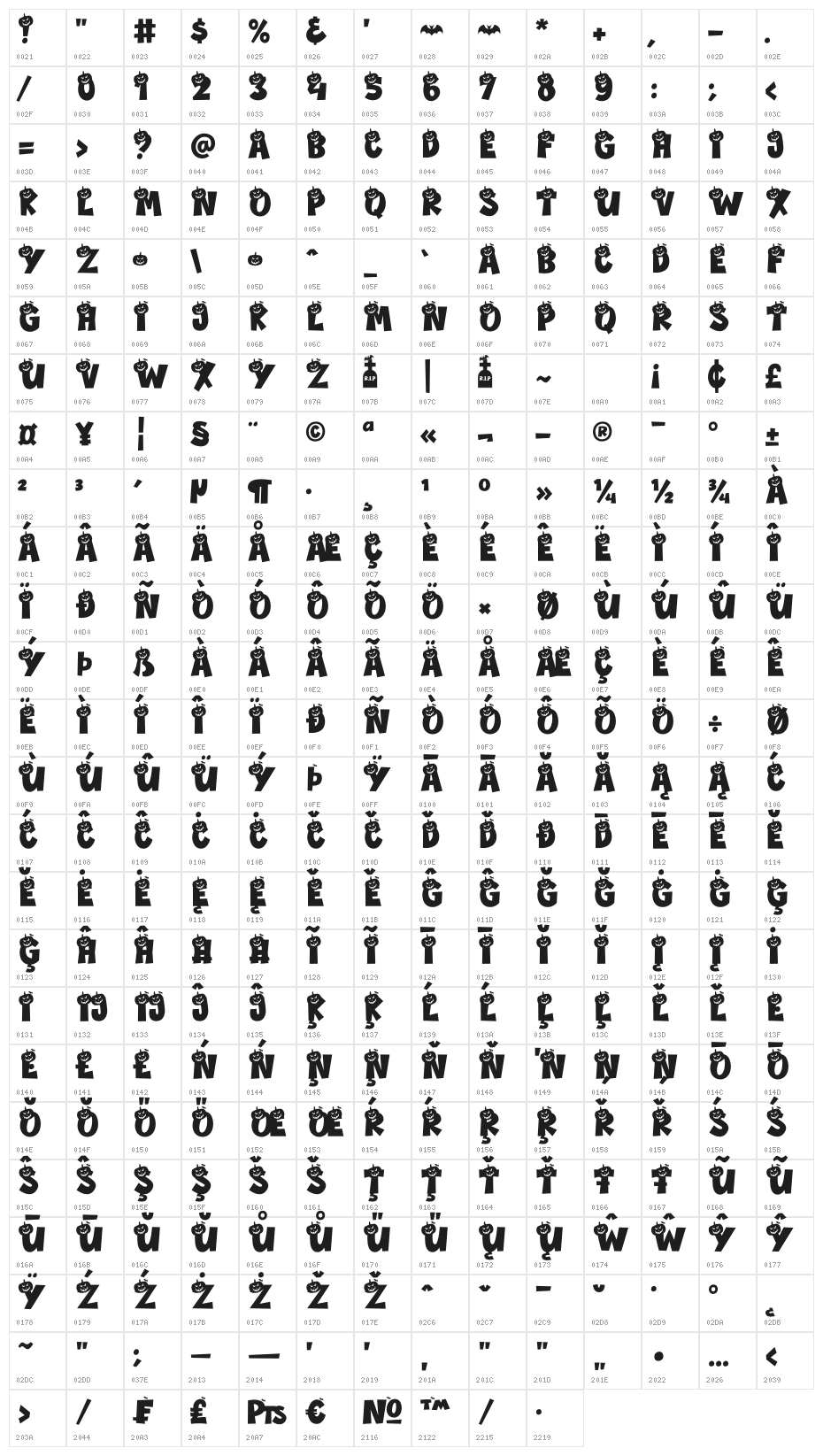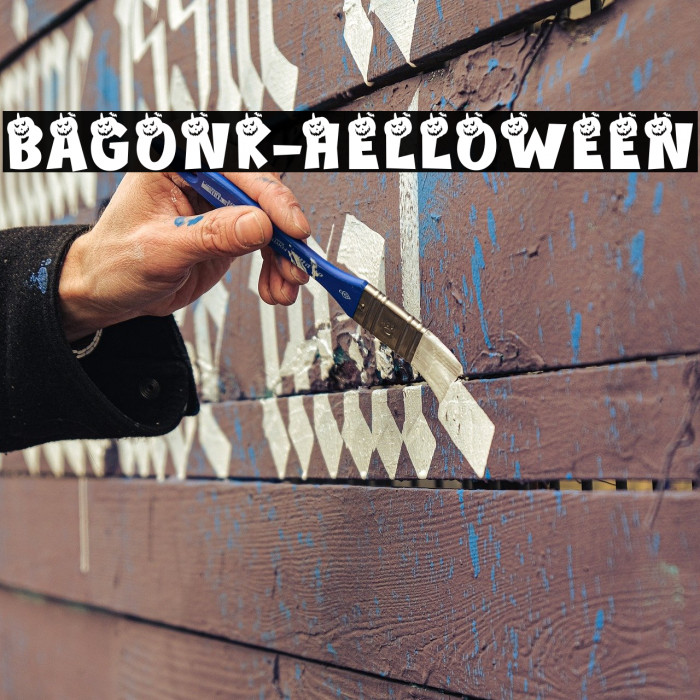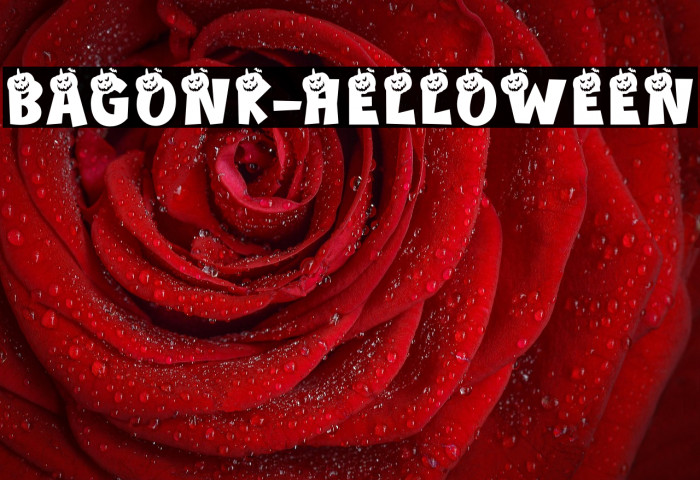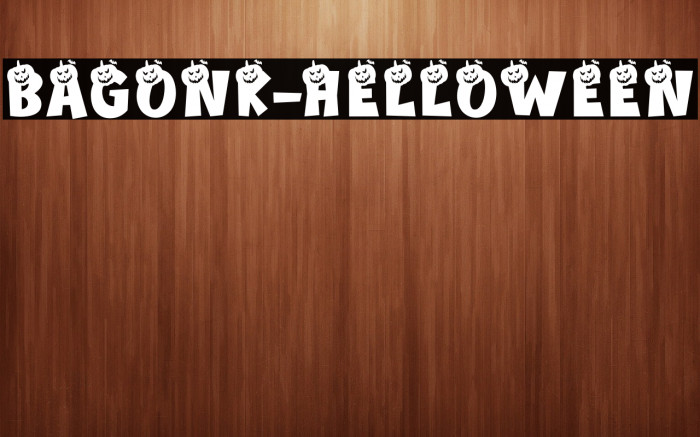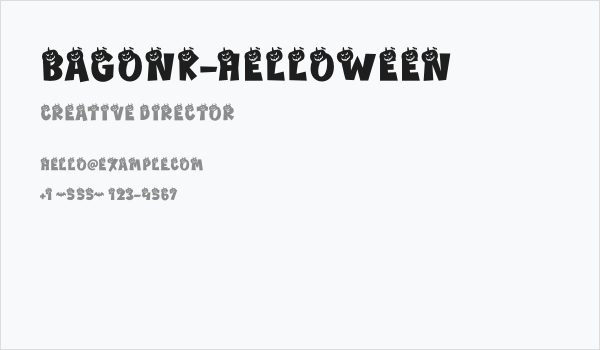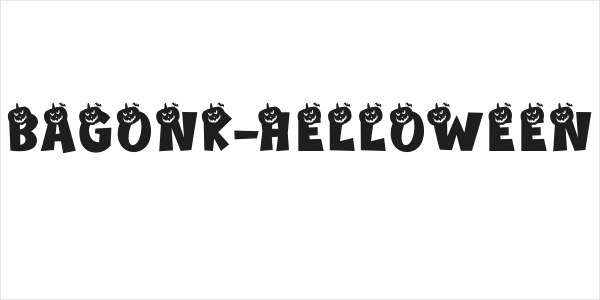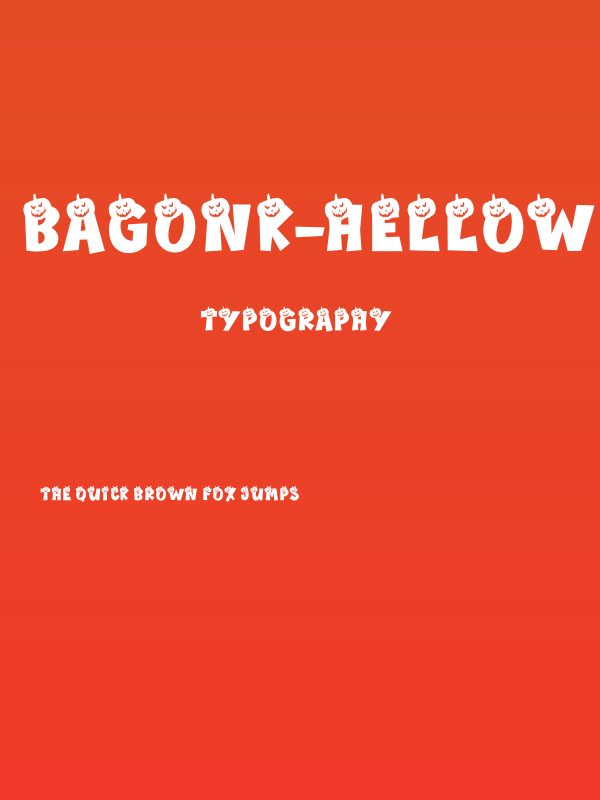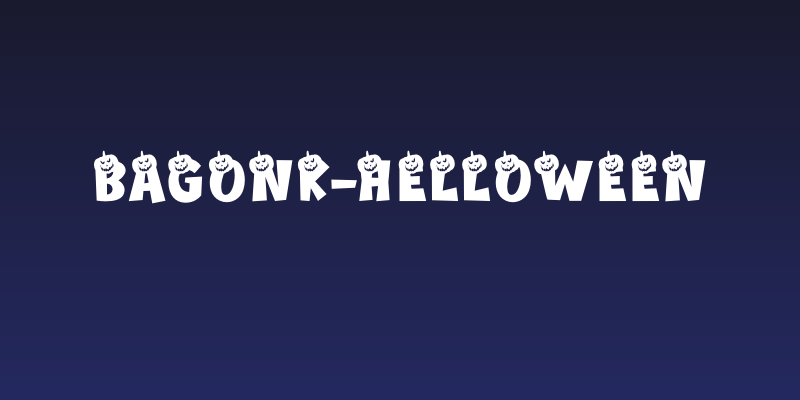
Bagonk-Helloween Font
Bagonk-Helloween Description
This playful and spooky font features bold, uppercase and lowercase letters adorned with jack-o'-lantern faces, creating a whimsical Halloween theme. The characters are chunky and slightly irregular, adding to the eerie yet fun aesthetic. The numbers and special characters maintain the same playful style, with some symbols incorporating Halloween motifs like bats. This font is perfect for seasonal designs, capturing the essence of Halloween with its unique and decorative style.
| Use Case | Headlines, Posters, Invitations |
| Proposed Projects | Ideal for Halloween party invitations, themed posters, children's books, and festive decorations. |